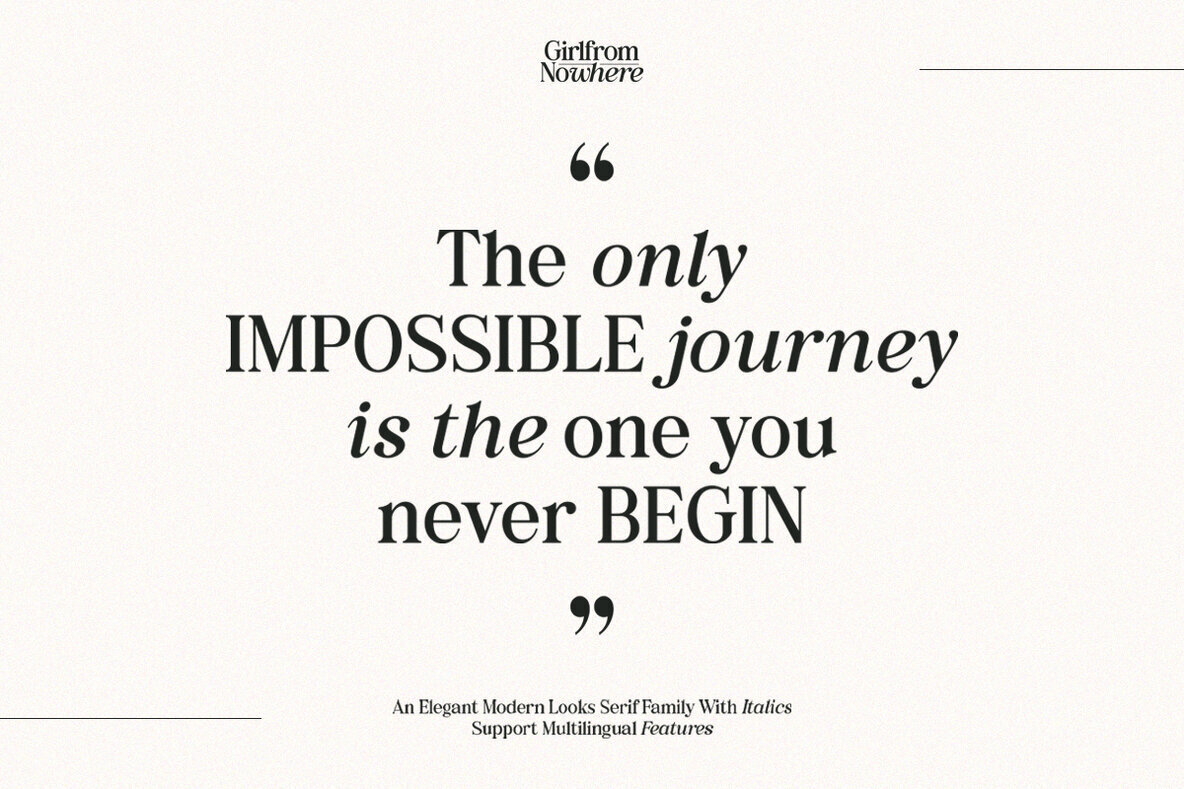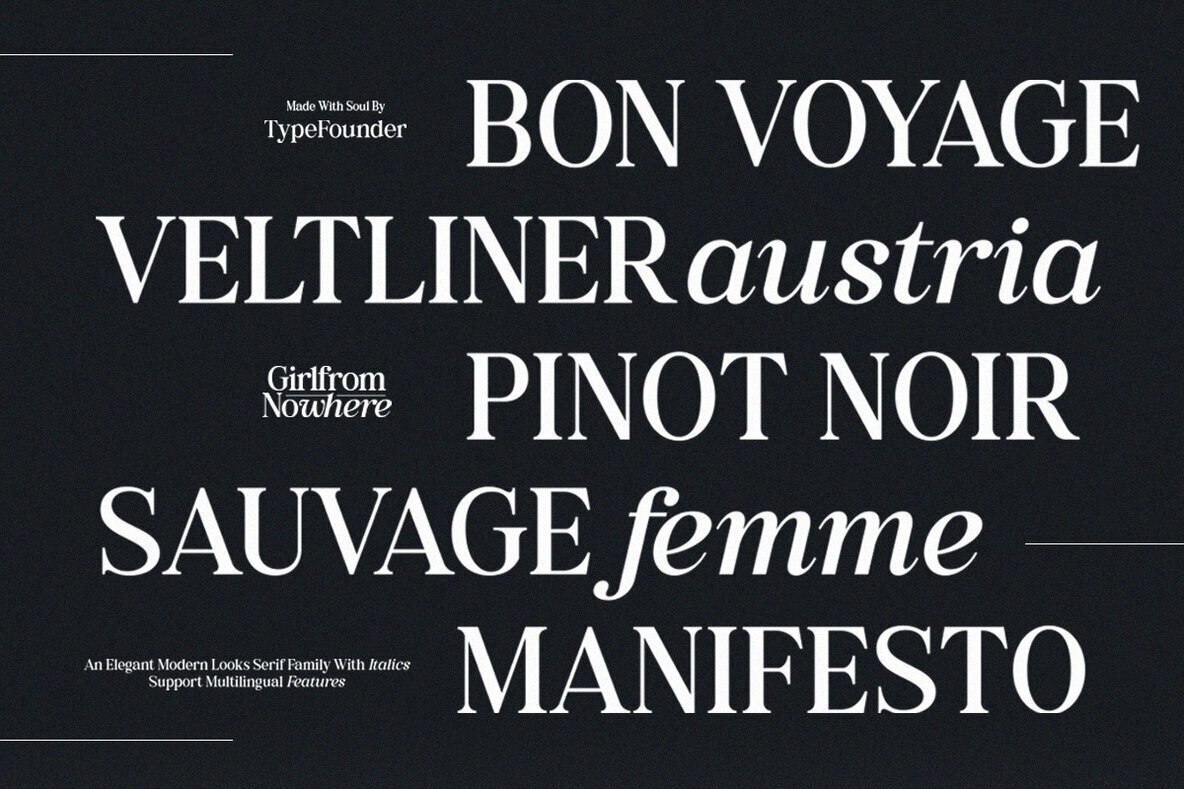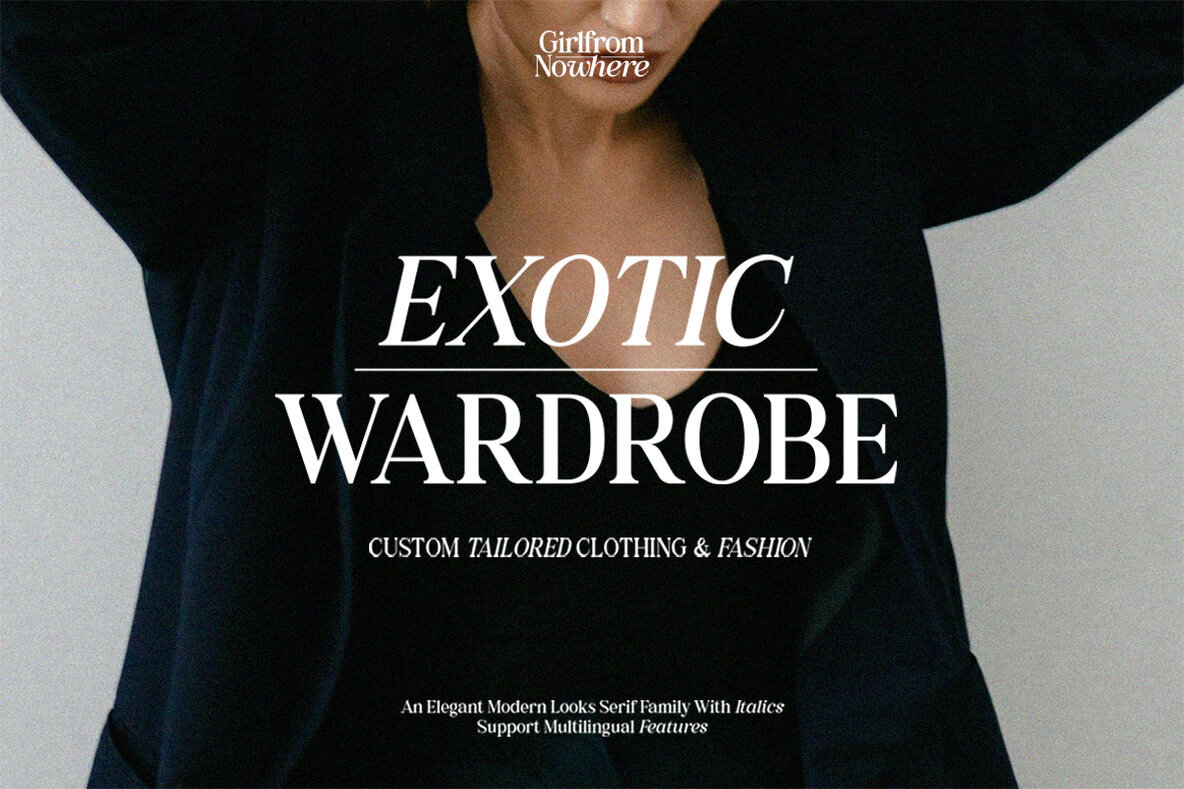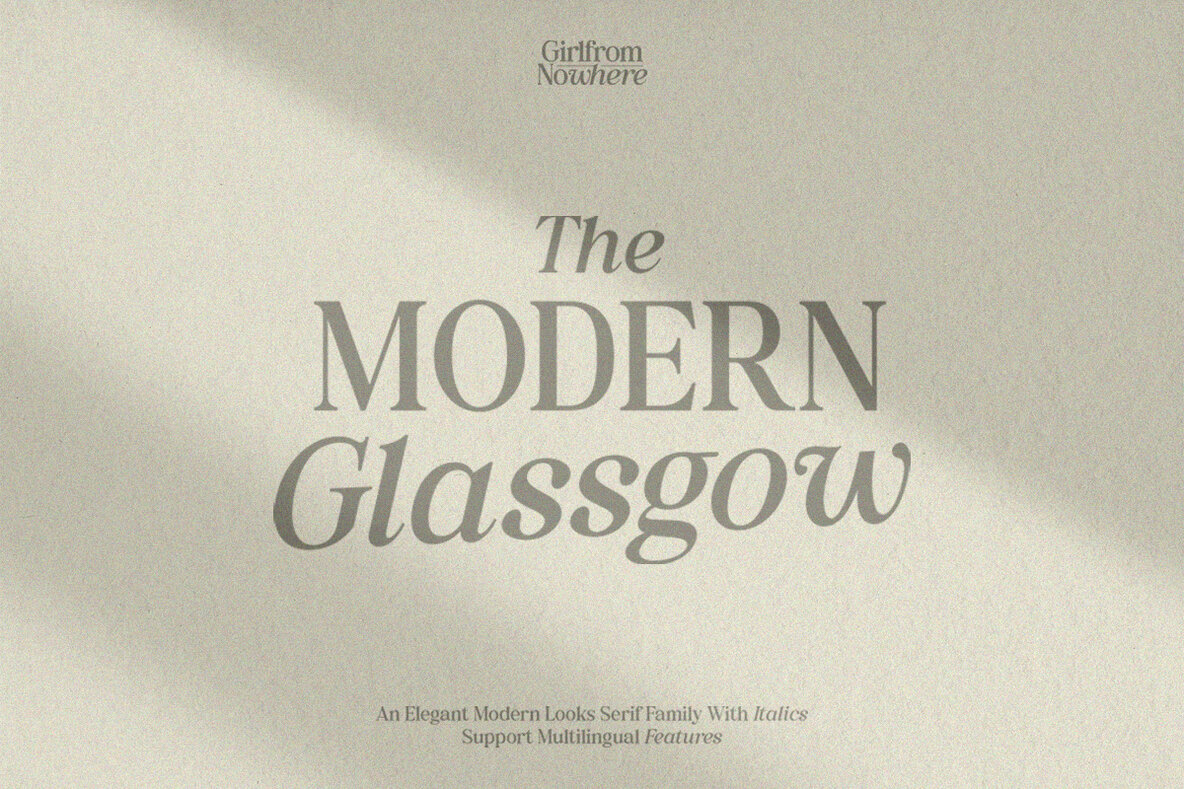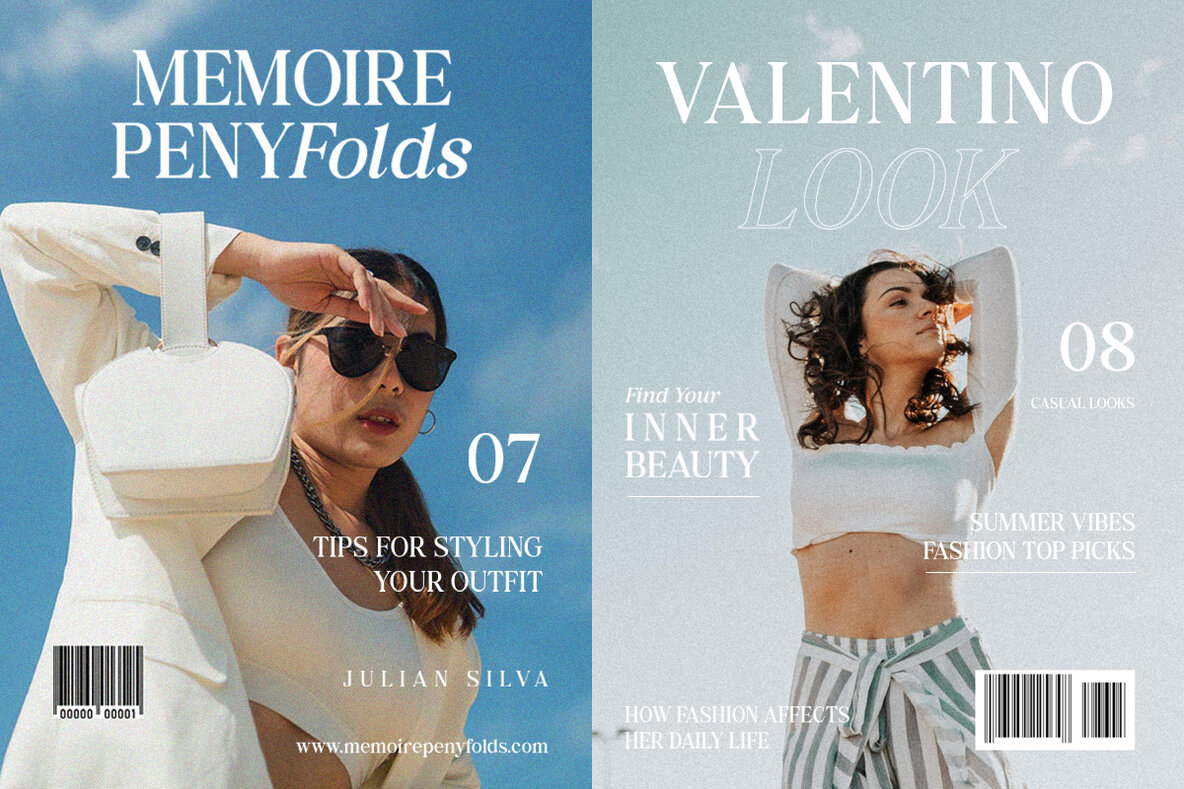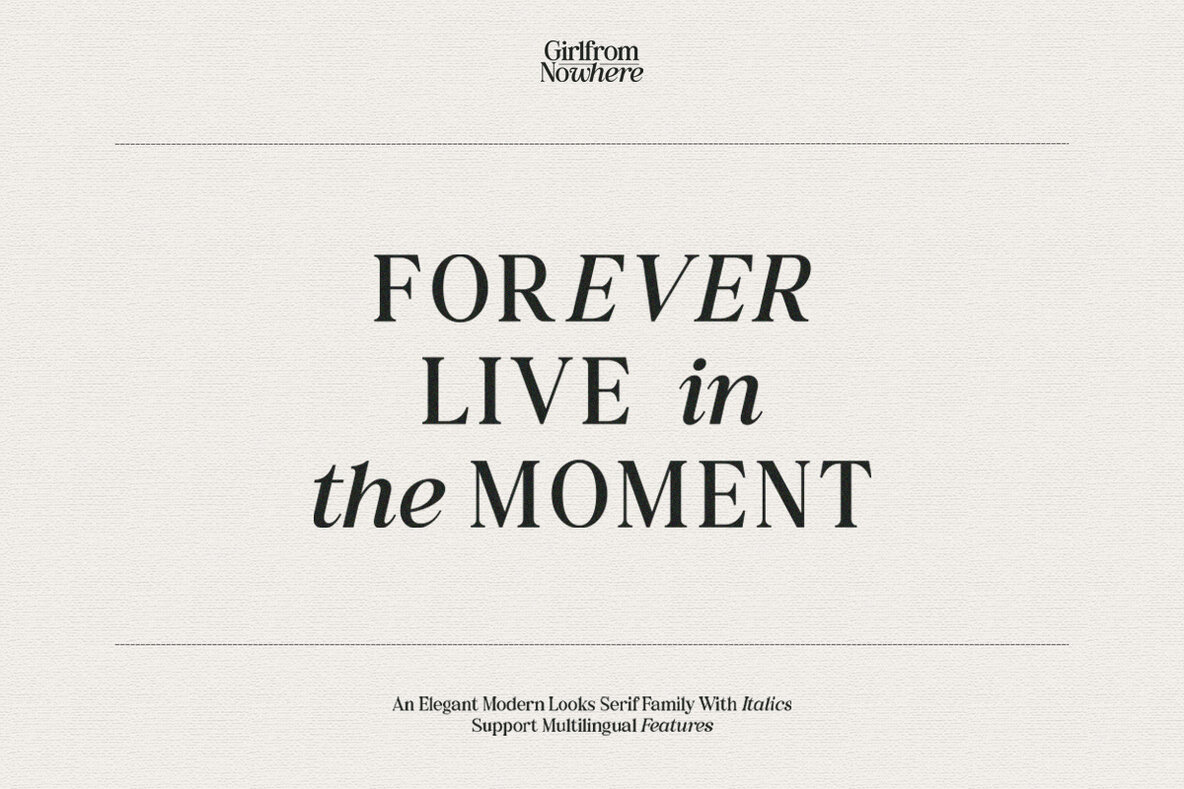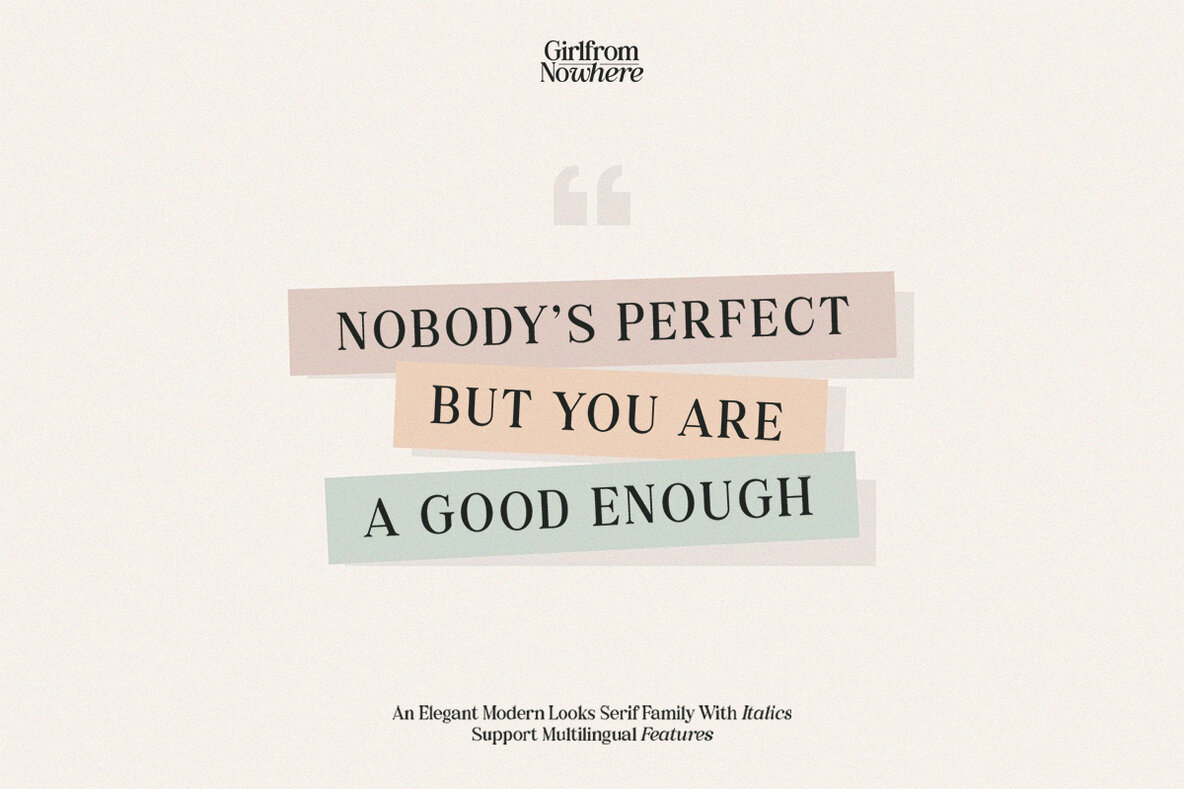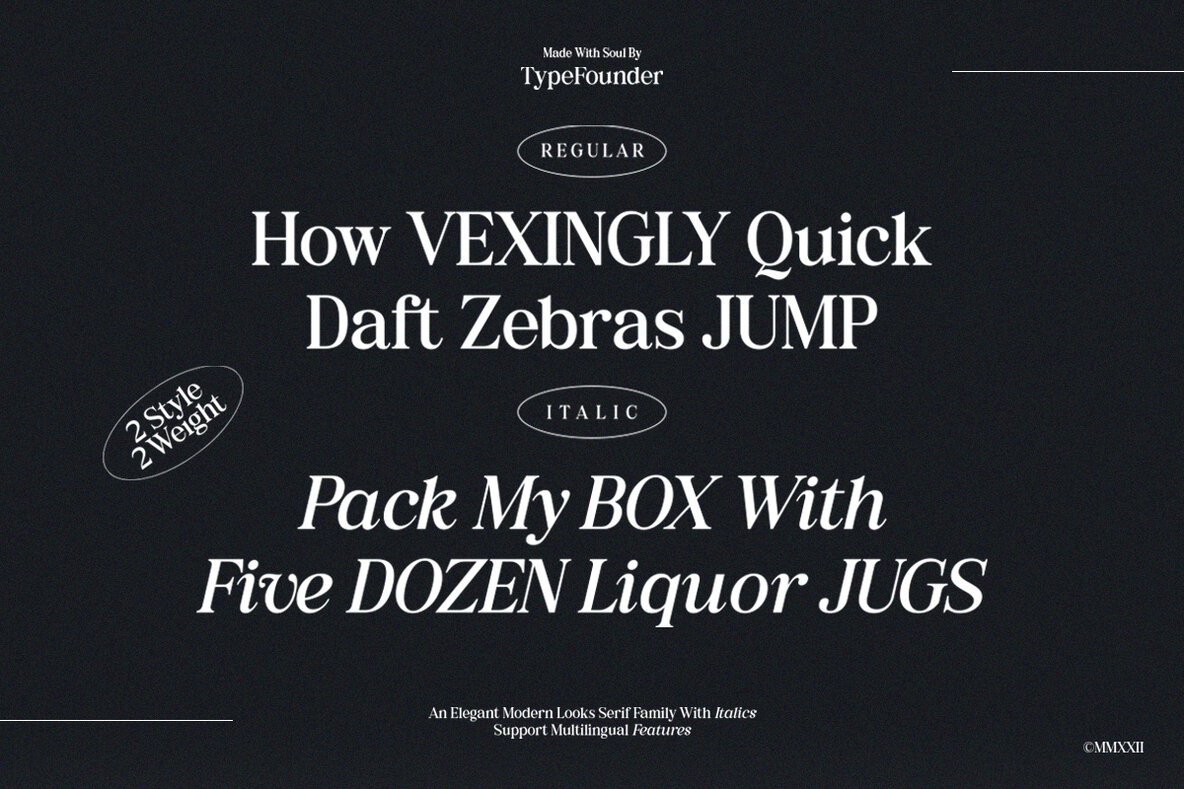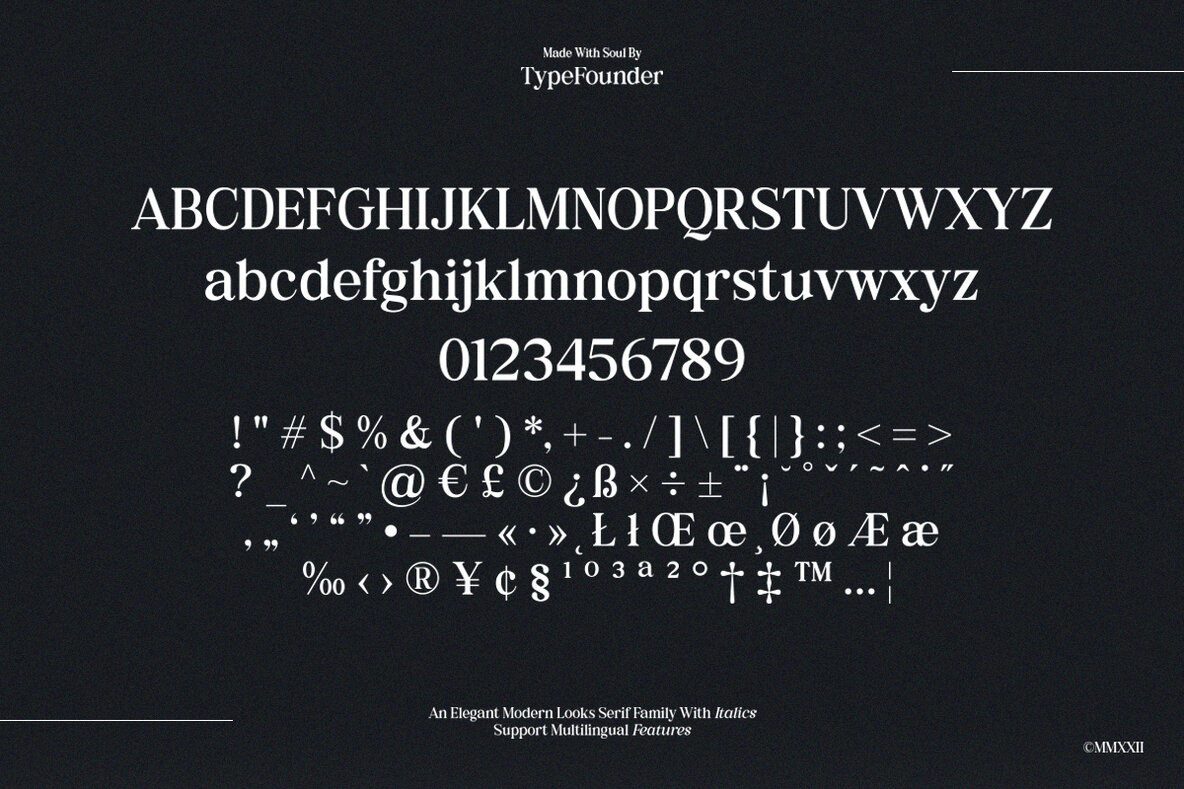
Girl from Nowhere Font
A beautiful, creative typeface with a modern appeal. Ligatures and alternate characters make this type perfect for any branding purpose!